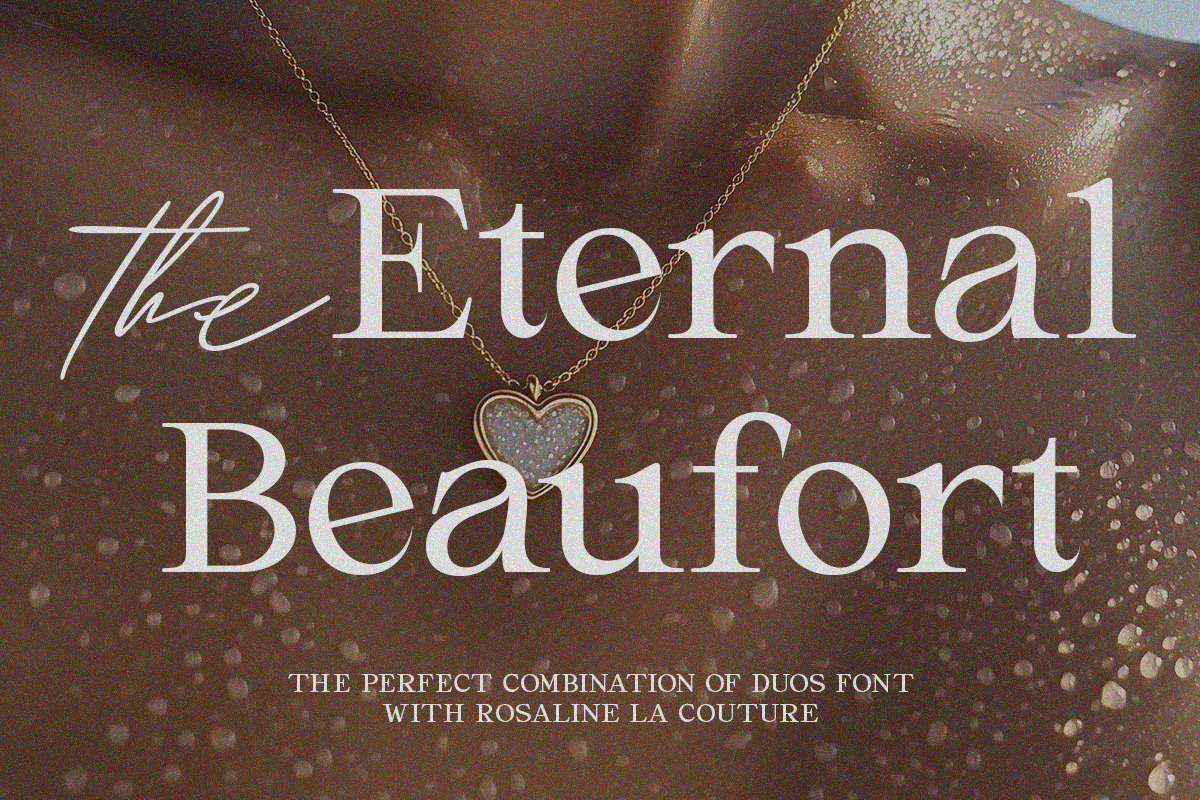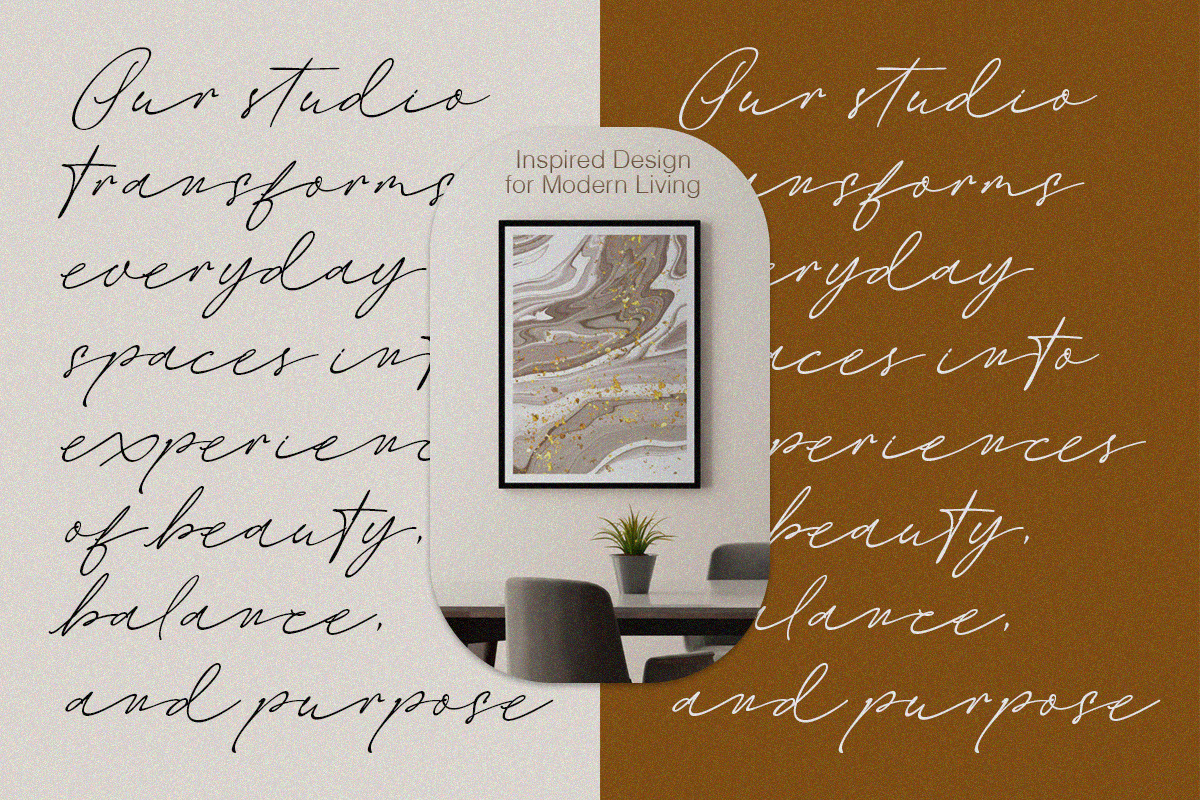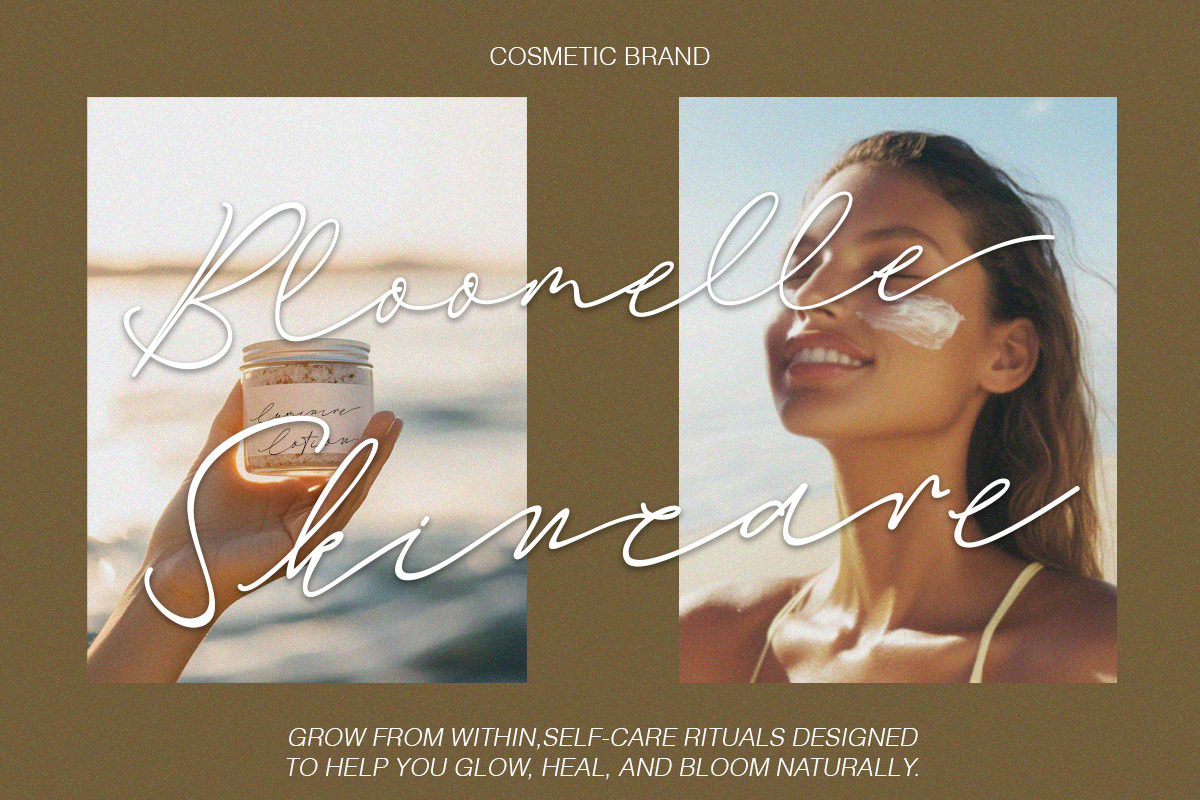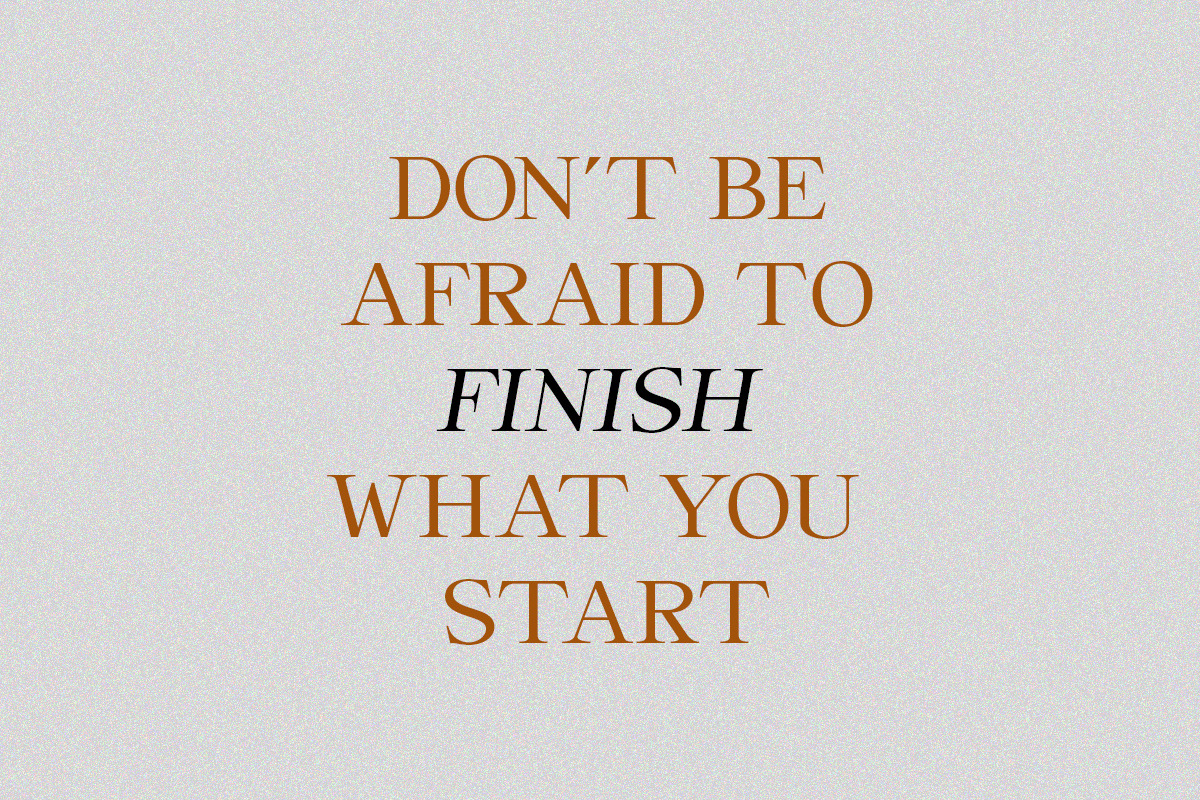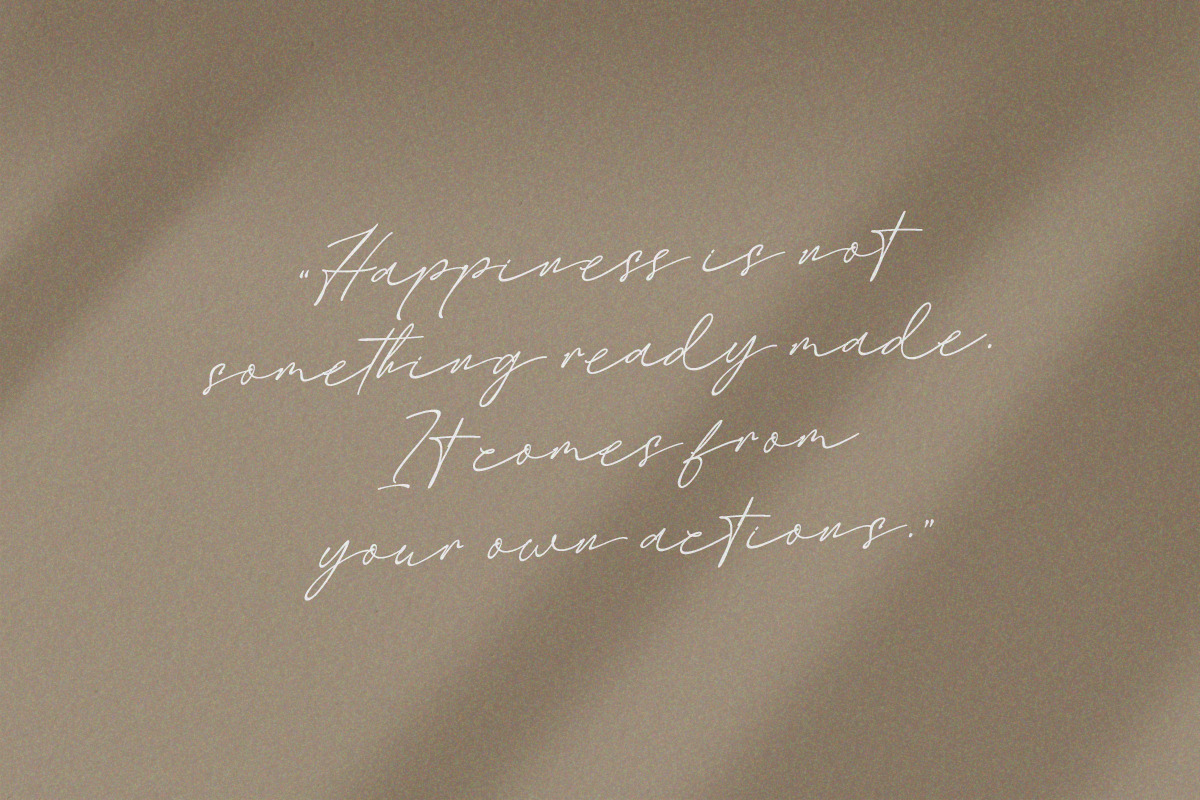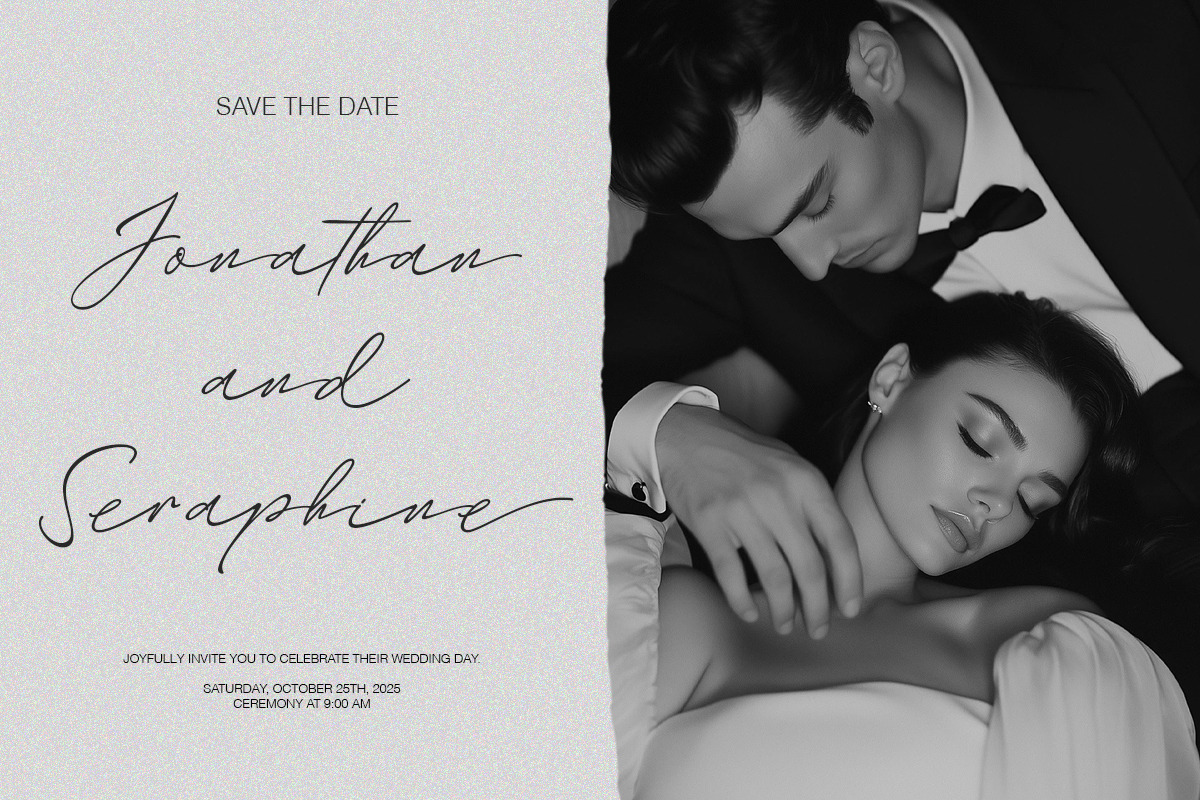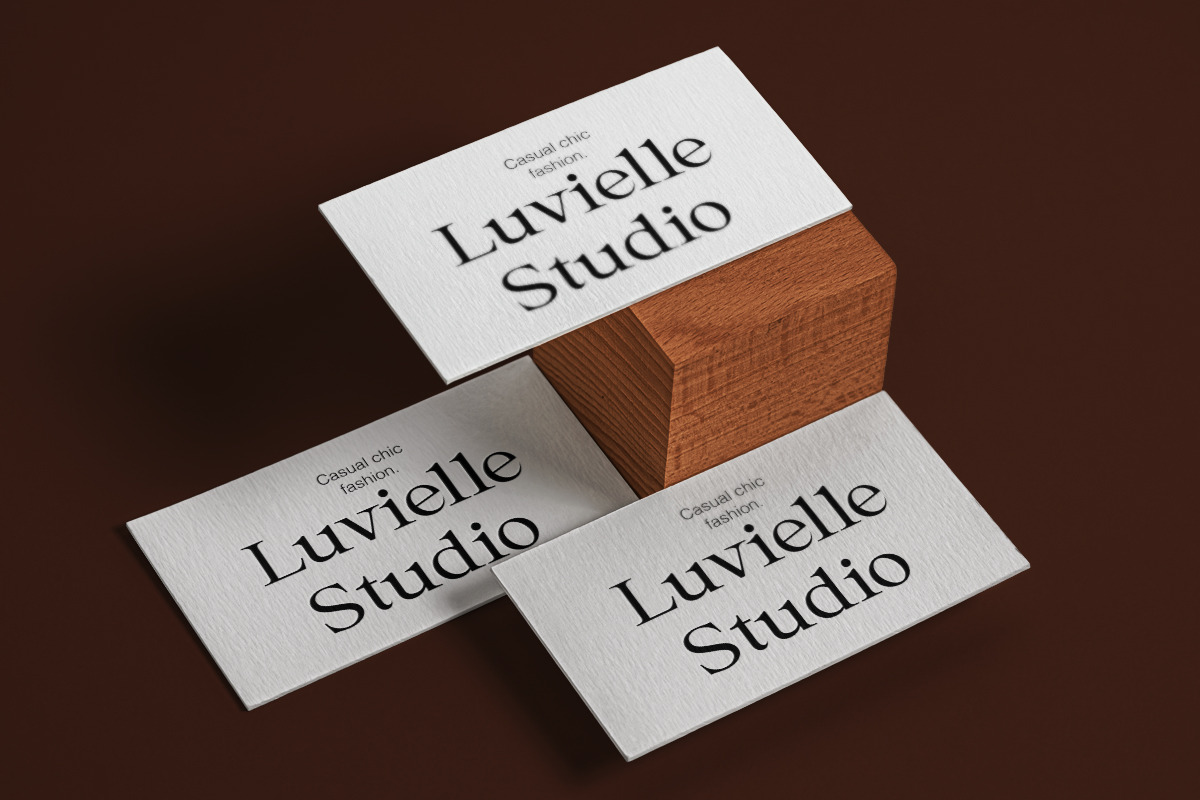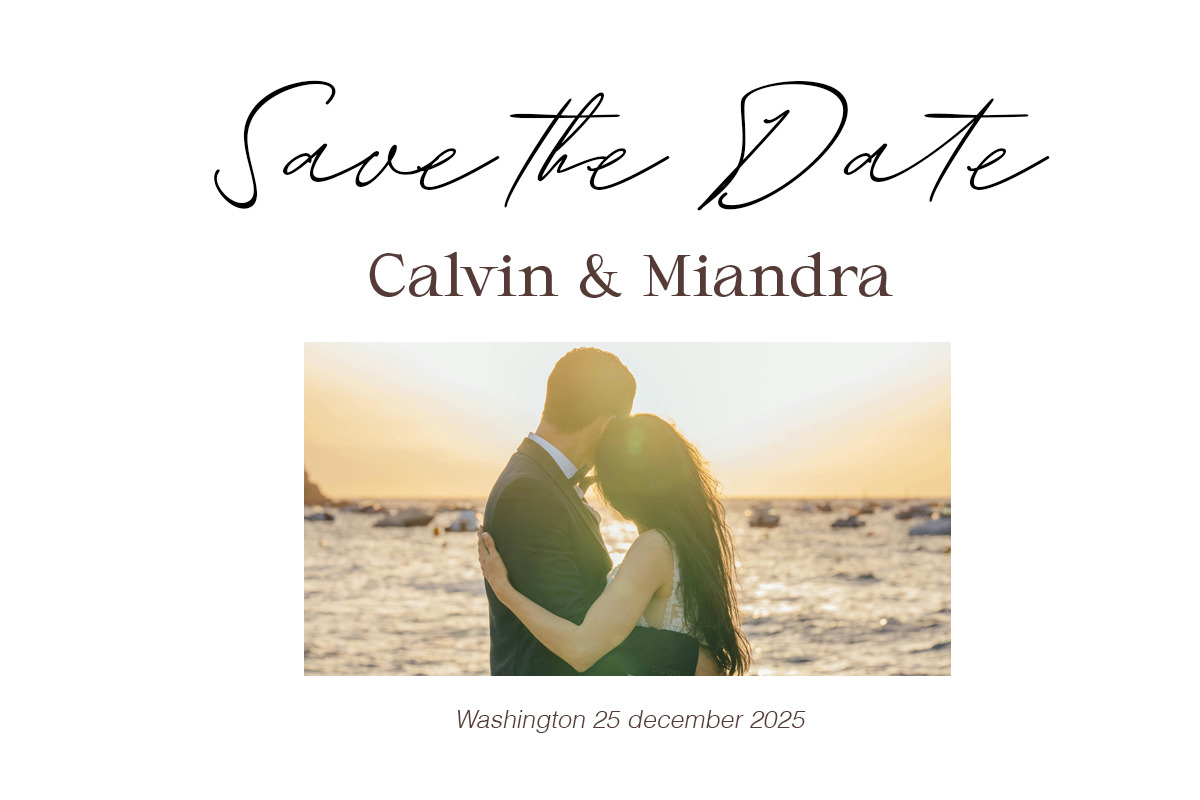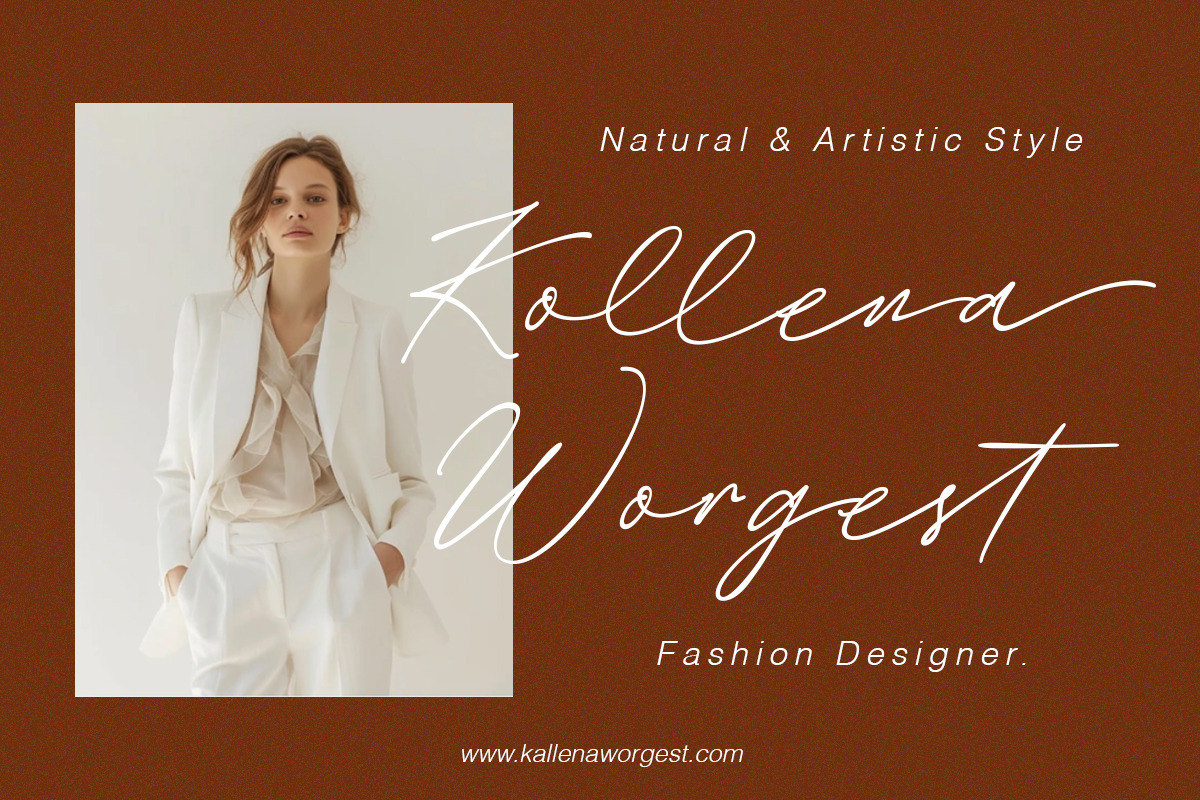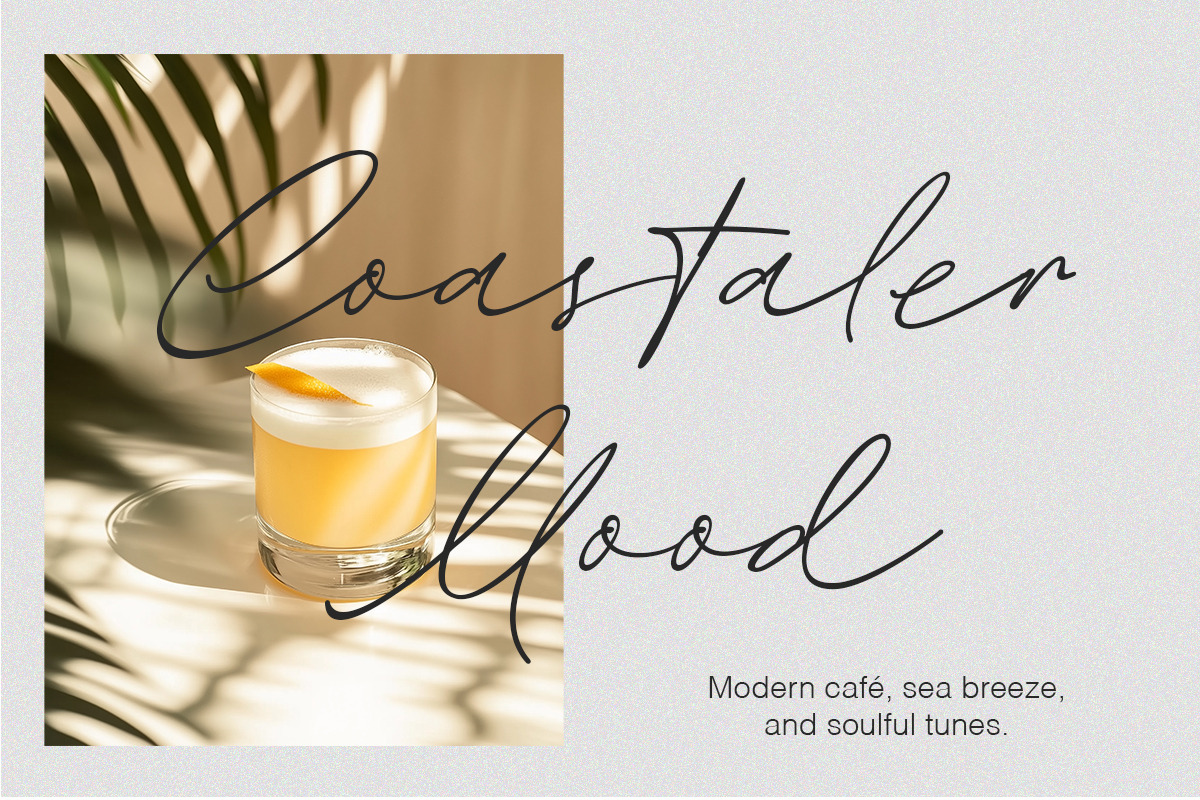
Rosaline La Couture
Rosaline La Couture – Signature & Serif Font Duo Rosaline La Couture is an elegant font duo that beautifully blends modern sophistication with timeless charm. The Rosaline Signature font showcases a graceful handwritten style — soft, feminine, and effortlessly luxurious. Each curve flows naturally, adding a personal and artistic touch to any design. Paired with Rosaline Serif, a classic and refined typeface with balanced proportions and a strong presence, the combination creates a perfect harmony between elegance and structure. Together, they deliver a refined, couture-inspired look ideal for fashion branding, wedding invitations, boutique logos, packaging, and modern-vintage editorials. Rosaline La Couture is more than just a typeface — it’s a statement of grace, luxury, and timeless beauty.